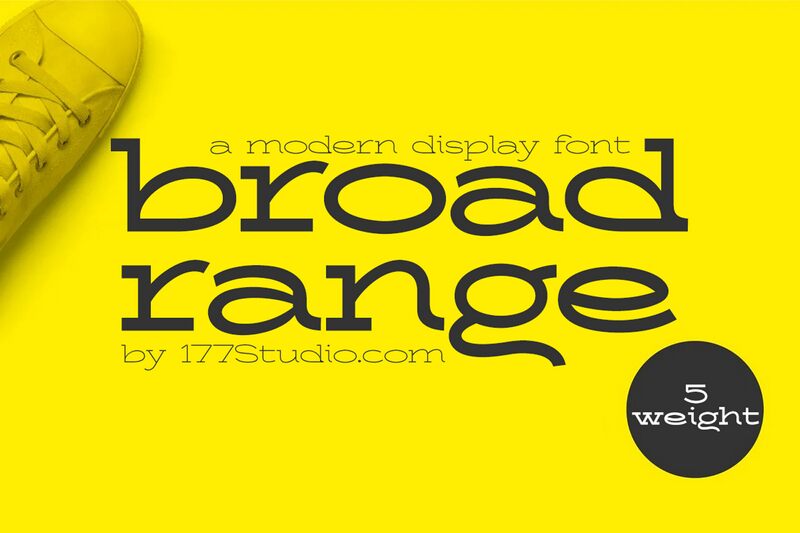
Looking for a versatile slab serif font that can take on any project? Check out broad range Thin, a sleek and modern typeface created by 177Studio.com. With its thin weight and wide width, this font is perfect for headlines, logos, and branding materials. Its clean lines and bold presence make it ideal for fashion or lifestyle magazines, while its classic slab serif styling offers a sophisticated touch for corporate reports or business cards. Whether you're looking to add personality to your website or elevate your print materials, broad range Thin has got you covered.